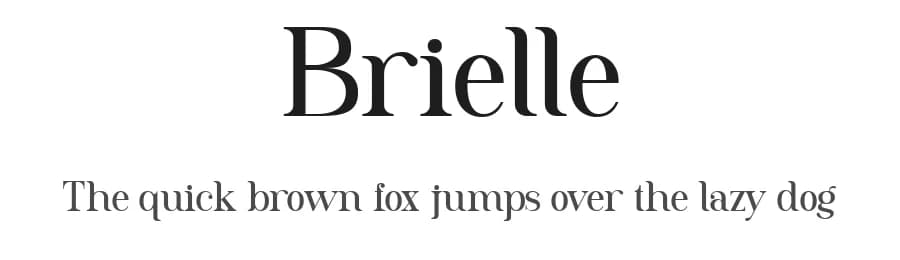
About Brielle Font
Brielle Specifications
| Font Family | Brielle |
| Full Name | Brielle Regular |
| Glyph Count | 317 glyphs |
| PostScript Name | Brielle-Regular |
| Designer | dealitastudio |
Brielle Font is a versatile serif font that works for both headings and body text. Pair it with a contrasting sans-serif or slab serif font to add visual interest and a clear distinction between titles and body copy.
Brielle Font